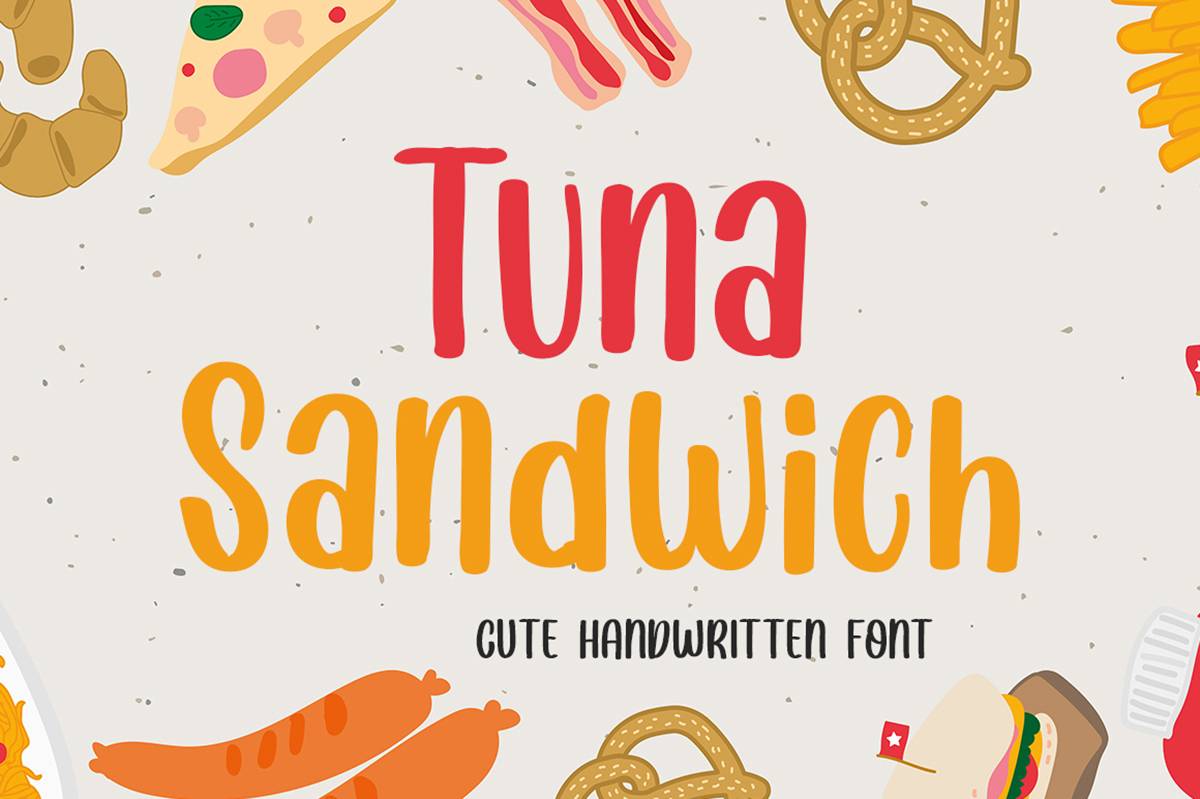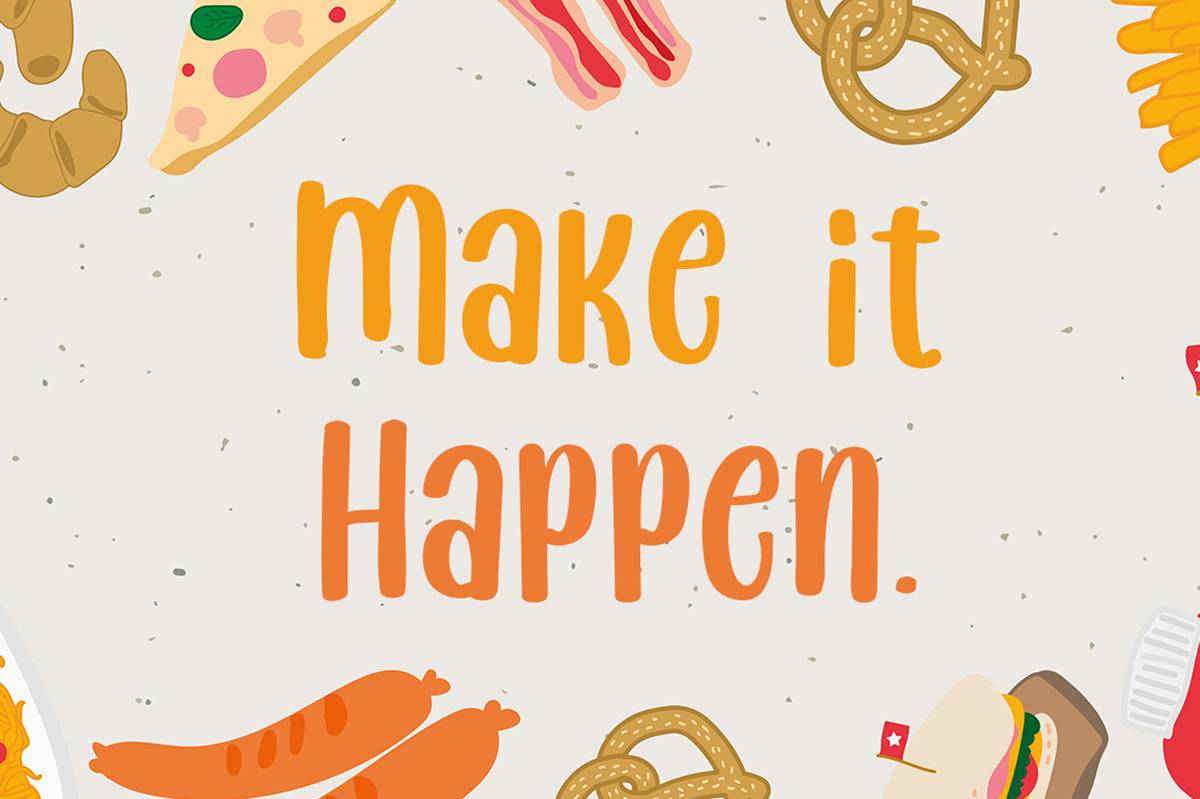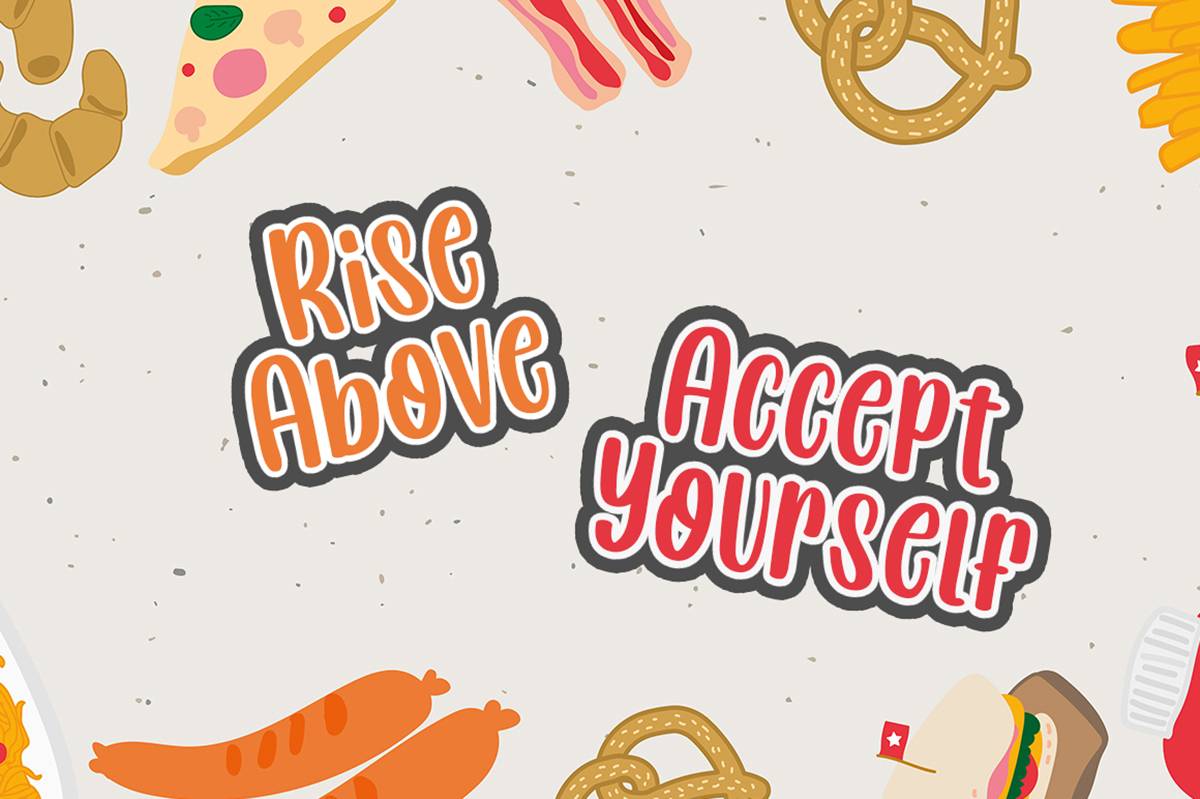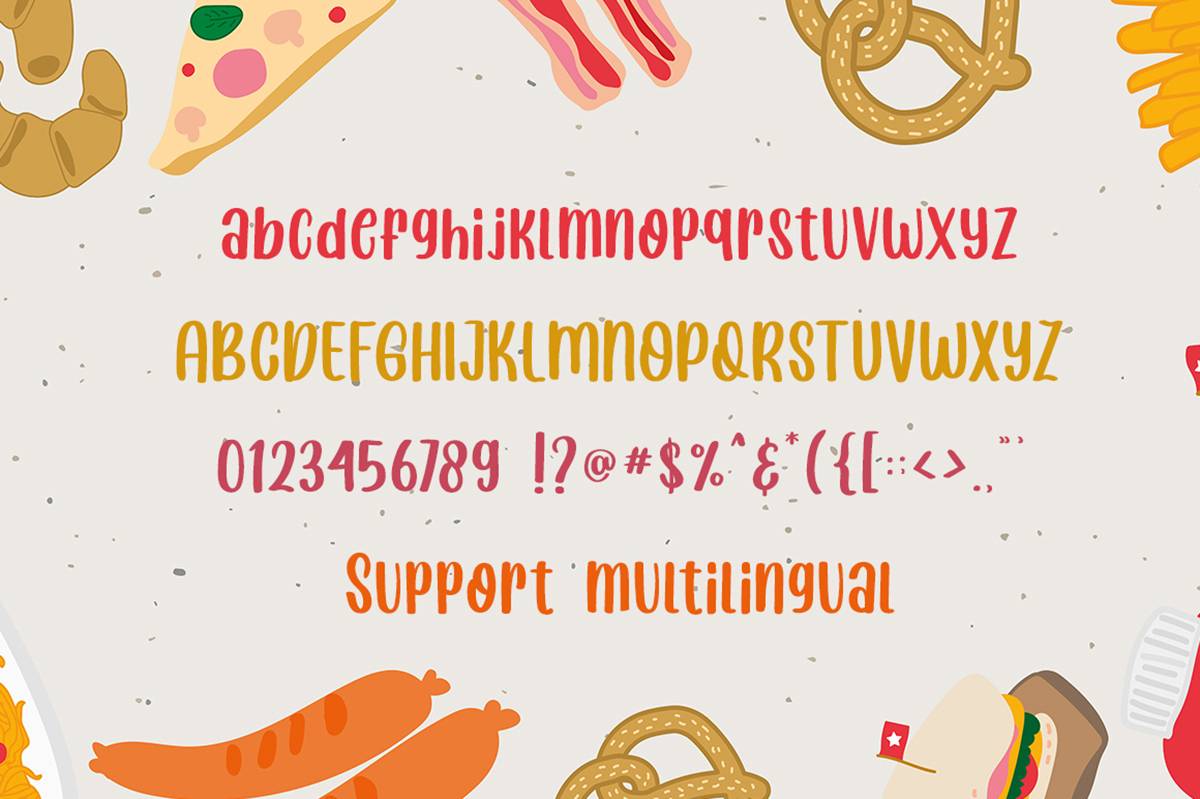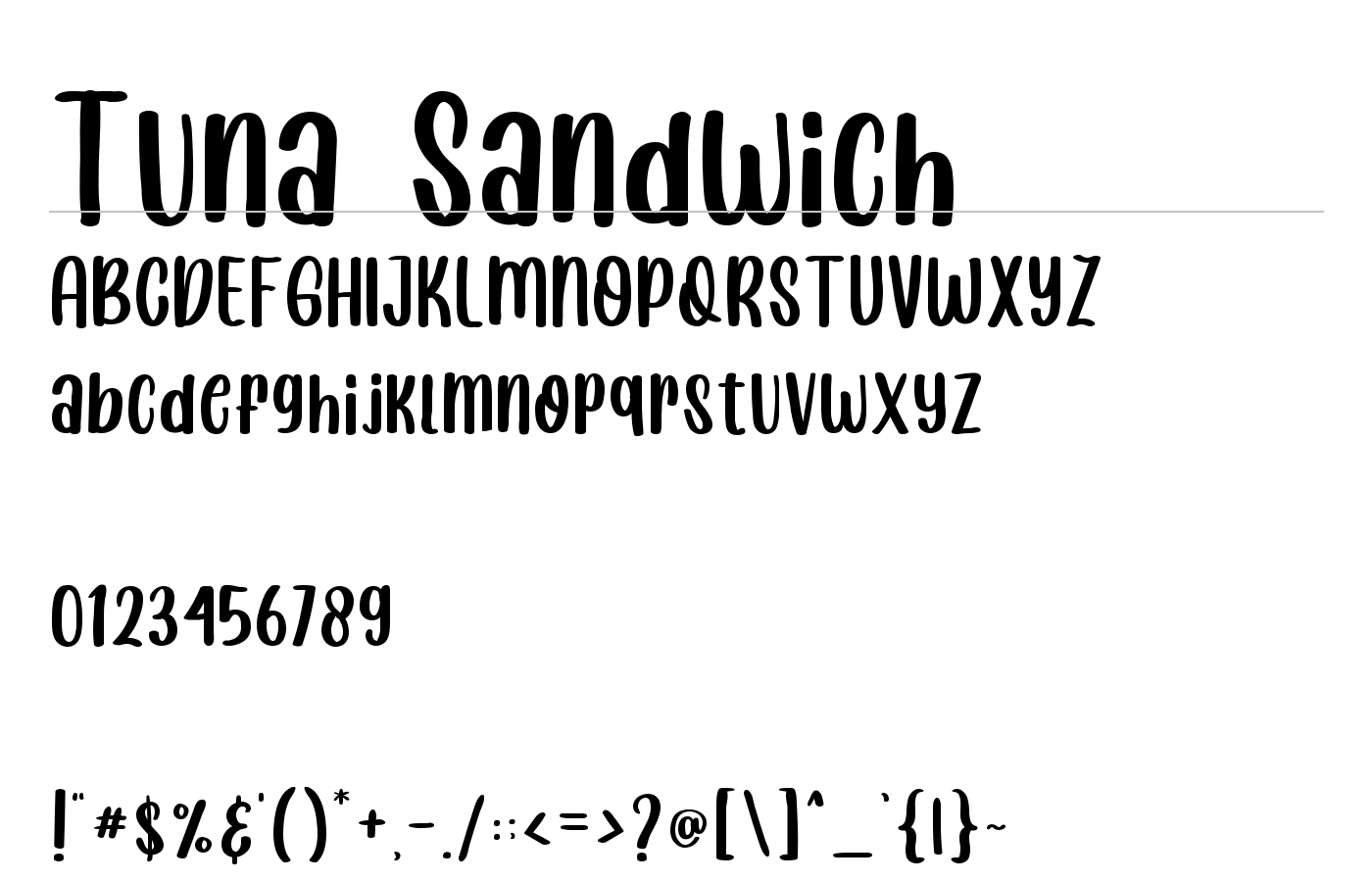
Tuna Sandwich is a playful and friendly sans serif font with a tall, narrow structure and uniform stroke weight that gives it a casual, hand-lettered feel. Its slightly quirky letterforms and rounded edges make it perfect for fun, informal branding, children’s products, or any design seeking a warm, approachable vibe. This font works well in headlines, packaging, and creative projects where a lively and energetic personality is desired.
Tuna Sandwich Font
About Tuna Sandwich Font
| Font family | Tuna Sandwich Font |